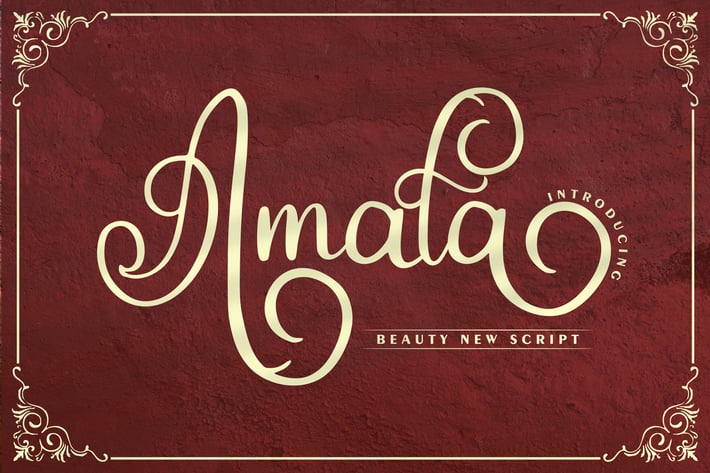
Amala | Beauty New Script Font
Amala | Beauty New Script Font with a calligraphy style, So beautiful on invitation like greeting cards, branding materials, business cards, quotes, posters, and more!